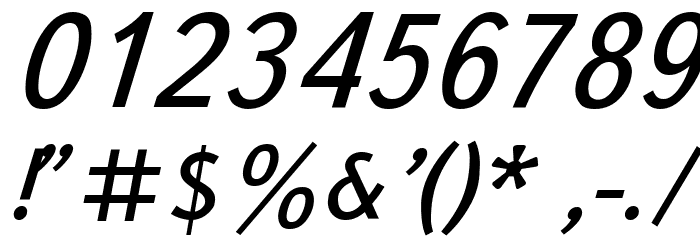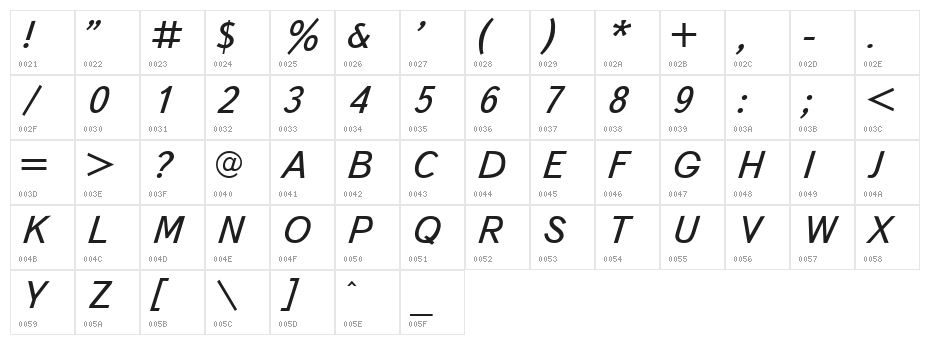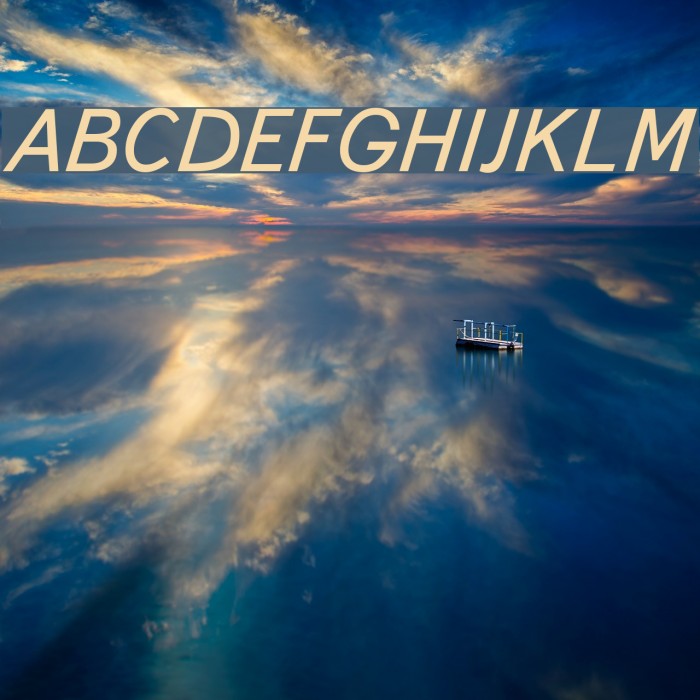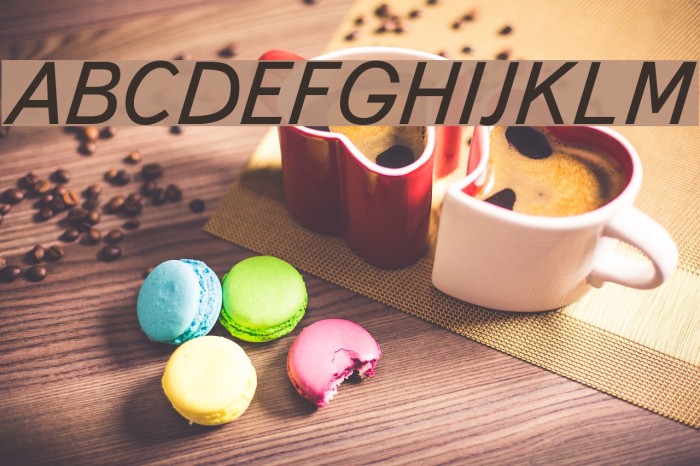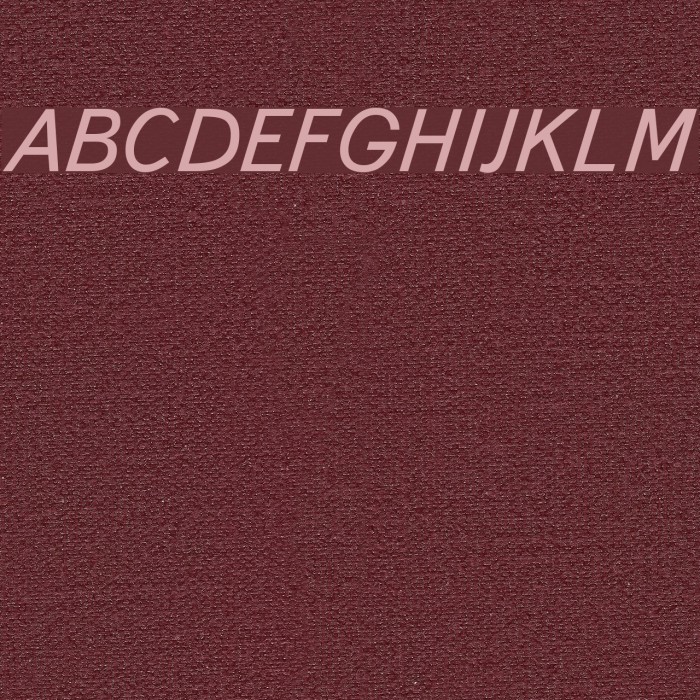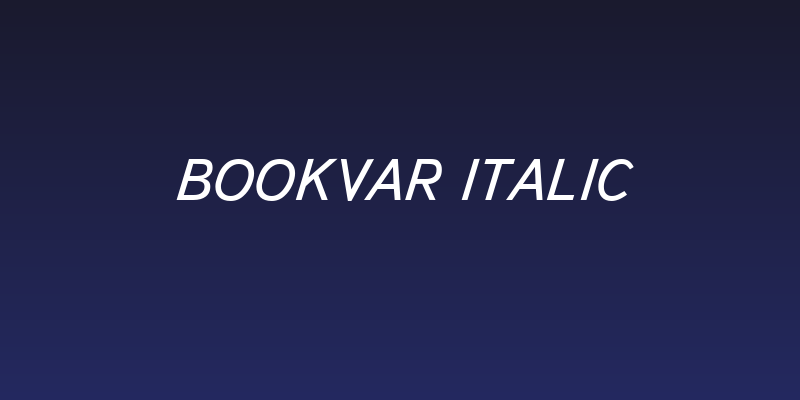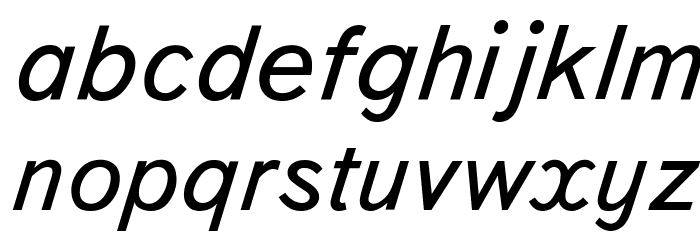
Bookvar Italic Font
Bookvar Italic Description
This font features a sleek and modern italic style with a clean and streamlined appearance. The characters are slightly slanted, giving a sense of motion and elegance. The strokes are consistent in thickness, providing a uniform look across all characters. The uppercase letters are bold and prominent, while the lowercase letters maintain a smooth and flowing form. Numbers are clear and easy to read, making them suitable for various applications. Special characters are well-defined, adding versatility to the font's use. Overall, this font exudes a contemporary and professional vibe, ideal for modern design projects.